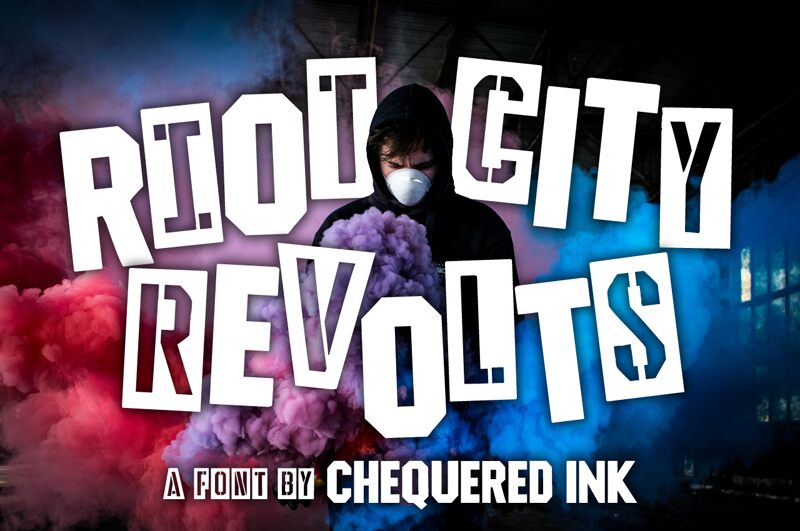
Riot City Revolts!
Riot City Revolts! font by Chequered Ink is a condensed military display font inspired by classic stencil fonts. Its all caps lettering carries an industrial, blocky style to it that makes this free beautiful deco-style font unique and attractive. It’s no surprise that its design was inspired by the covers of 90s video games like Resident Evil.
This creative typeface can be used on websites, apps, magazine covers, and advertisement posters. Use it to write book titles, business cards, digital artwork layouts, social media platform materials, tee-shirt prints and other apparel designs. Also use it for packaging designs or anywhere else you see fit in your design projects.